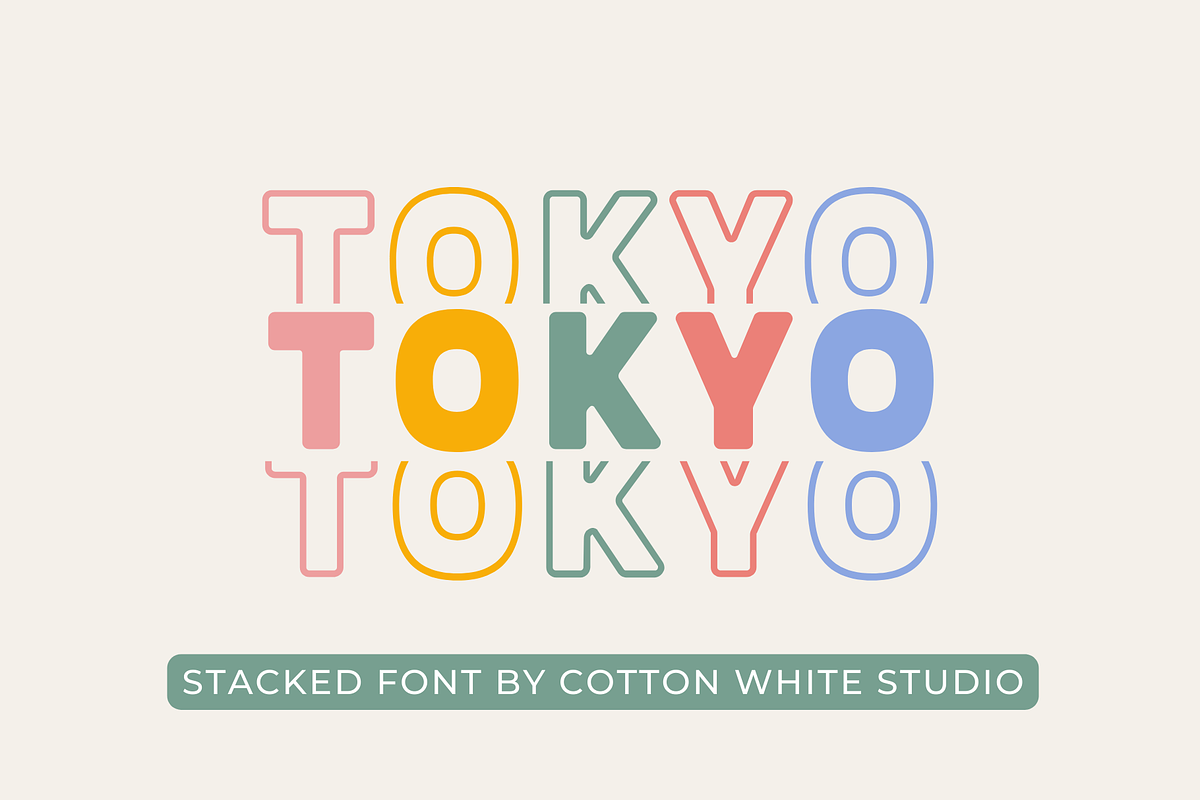
Tokyo Font Free Download is a sleek and contemporary typeface inspired by the clean lines and bold energy of Japanese urban design. With its minimalist structure and futuristic feel, Tokyo is perfect for branding, tech logos, fashion editorials, posters, packaging, and digital content that needs a modern edge.
Whether you're channeling the neon vibes of Shibuya or the stylish simplicity of Tokyo streetwear, this font delivers a high-impact look with refined precision. Its versatility makes it ideal for both headlines and logos. Tokyo Font Free Download allows you to test its unique aesthetic in personal projects before investing in a commercial license.
Bring your designs into the now with Tokyo — the modern font that fuses elegance, innovation, and global style.